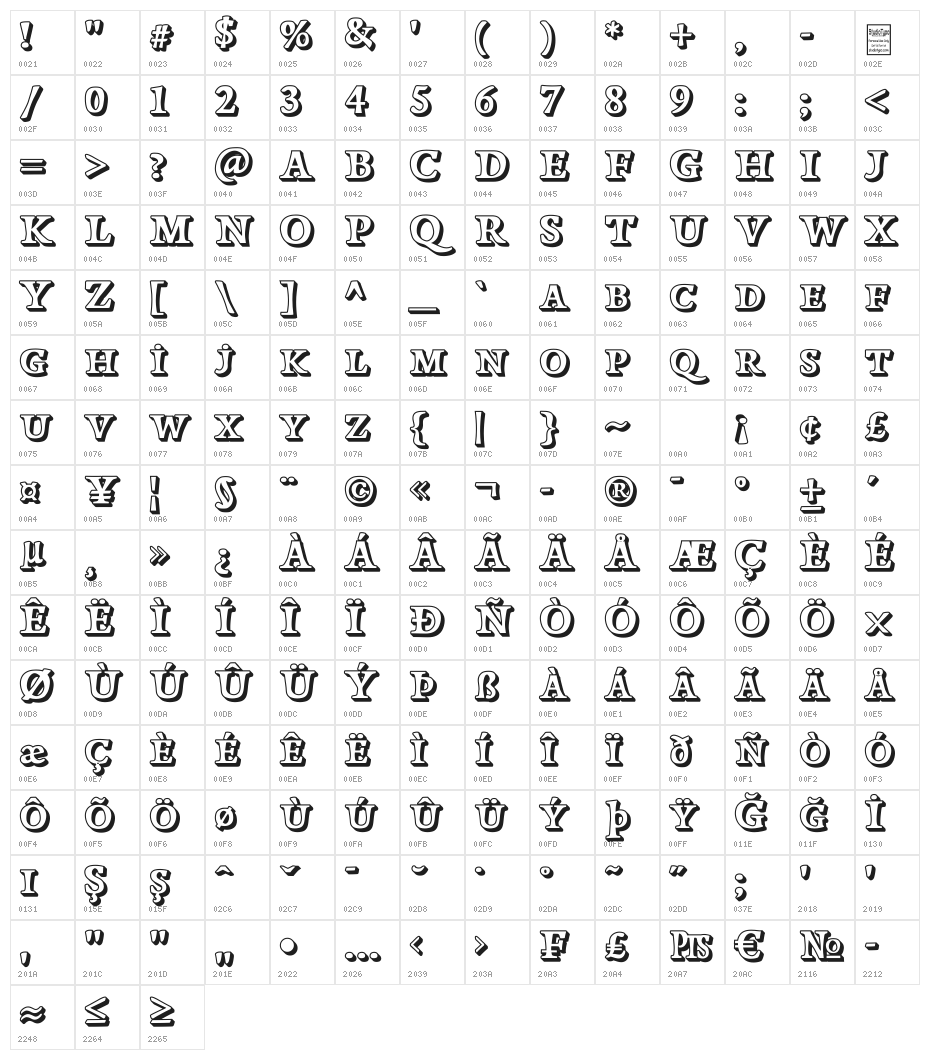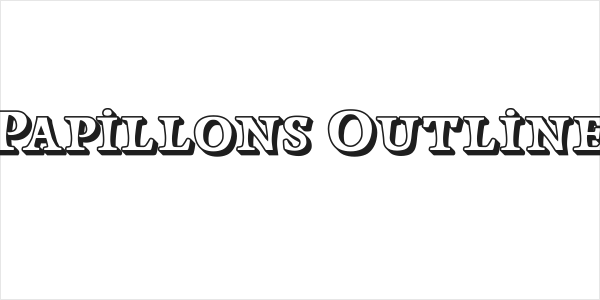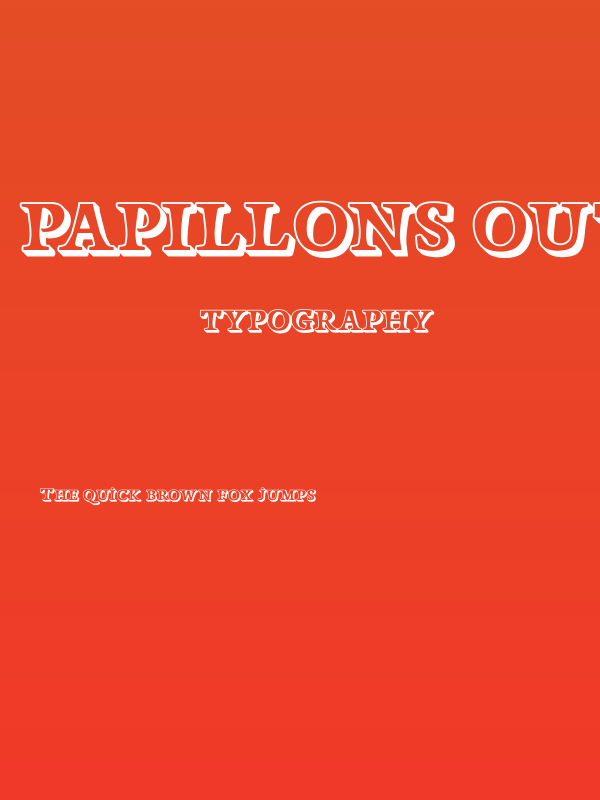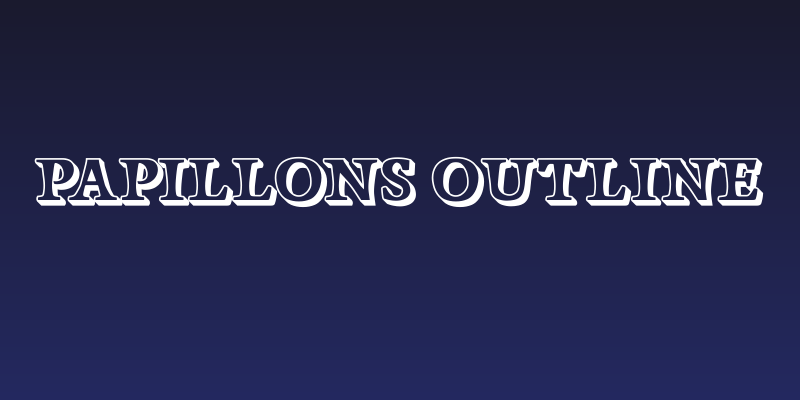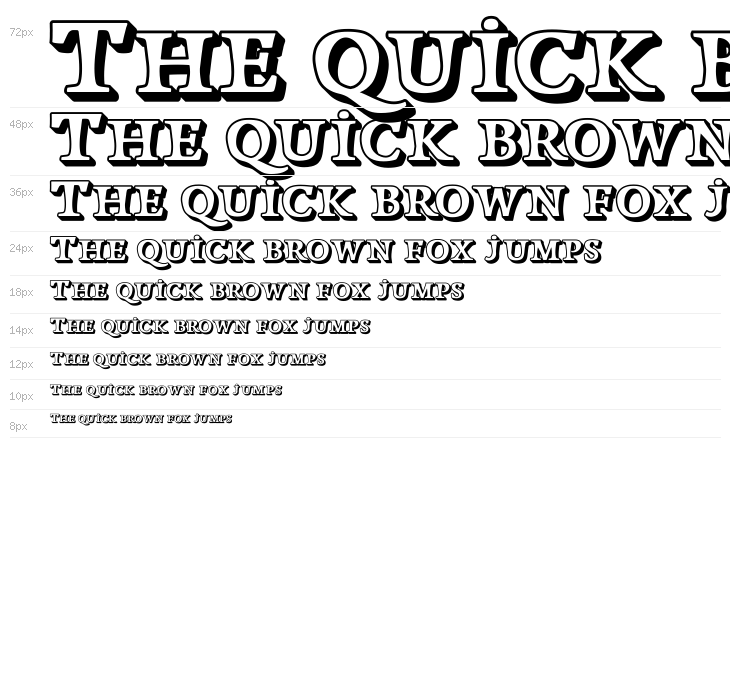
Papillons Outline Font
Papillons Outline Description
This font features a bold, outlined style with a strong presence. The characters are capitalized with a shadow effect that gives them a three-dimensional appearance. The strokes are thick, and the outlines are prominent, creating a striking visual impact. The font maintains a consistent weight throughout, with each letter and number having a uniform thickness. The spacing between characters is normal, allowing for readability while maintaining its decorative flair. The overall style is modern with a touch of vintage, making it suitable for projects that require a bold statement.
| Overall Style | Modern, Vintage |
| Proposed Projects | Ideal for headlines, posters, logos, and branding materials that require a bold and eye-catching typeface. |